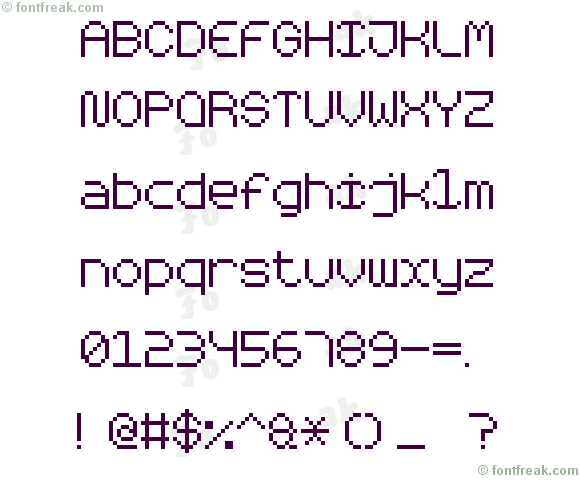
Rounded Pixel-7
About Rounded Pixel-7
Rounded Pixel-7, designed by Style-7, is a distinctive display font that combines the charm of pixel art with soft, rounded edges. This unique typeface falls under the category of decorative fonts, making it an excellent choice for projects that seek to convey a playful and modern aesthetic. The font features a uniform stroke weight, contributing to its pixelated appearance, while the rounded corners soften its overall look, resulting in a friendly and approachable character.
The visual characteristics of Rounded Pixel-7 are defined by its clear and legible design, with minimal contrast that enhances readability even in smaller sizes. The spacing between characters is well-considered, ensuring that each letter stands out while maintaining a cohesive flow. This makes it suitable for various applications where clarity is essential.
Rounded Pixel-7's versatility allows it to shine in a variety of contexts. It is particularly effective for video game graphics, tech-themed branding, and social media graphics aimed at younger audiences. Additionally, it can elevate the design of promotional materials for tech startups, event flyers, or even merchandise. Graphic designers looking to create eye-catching visuals will find this font an invaluable asset.
What sets Rounded Pixel-7 apart is its ability to blend nostalgia with contemporary design trends, making it a standout choice for anyone looking to infuse their projects with personality and creativity. Whether for digital or print, this font promises to add a distinctive flair to any design.
Author Style-7